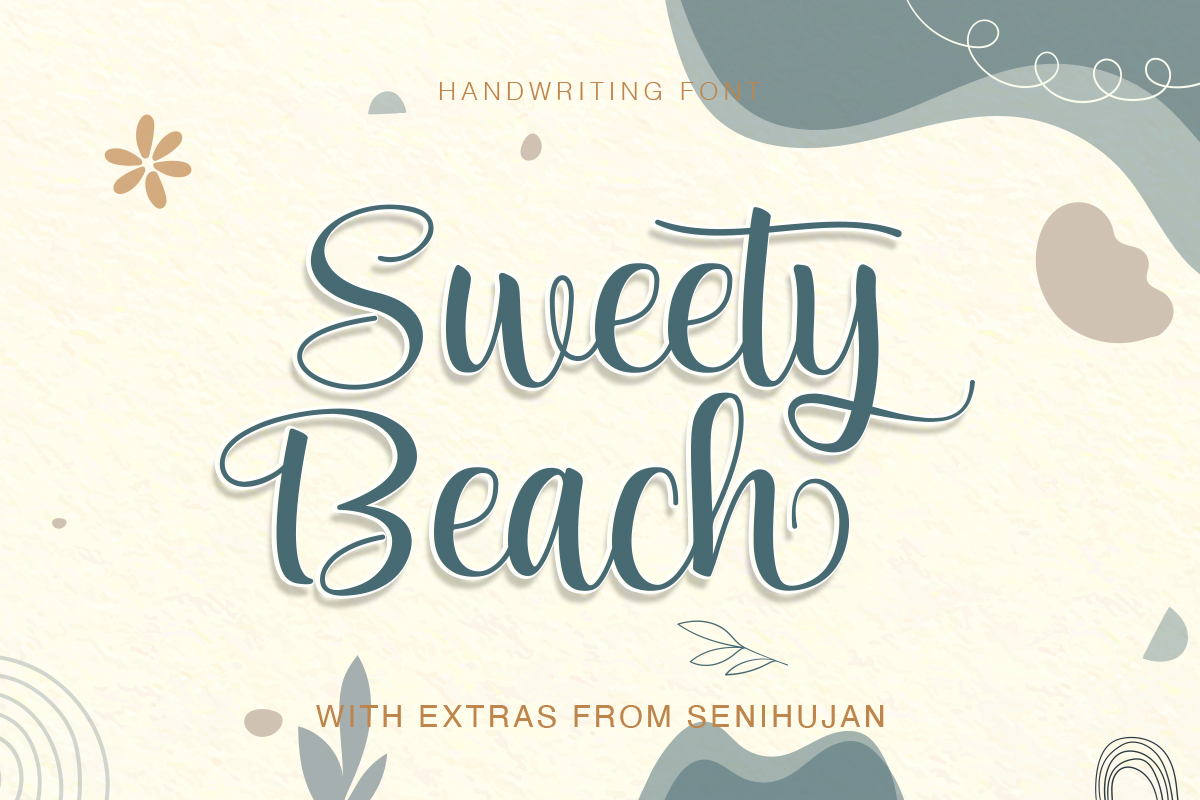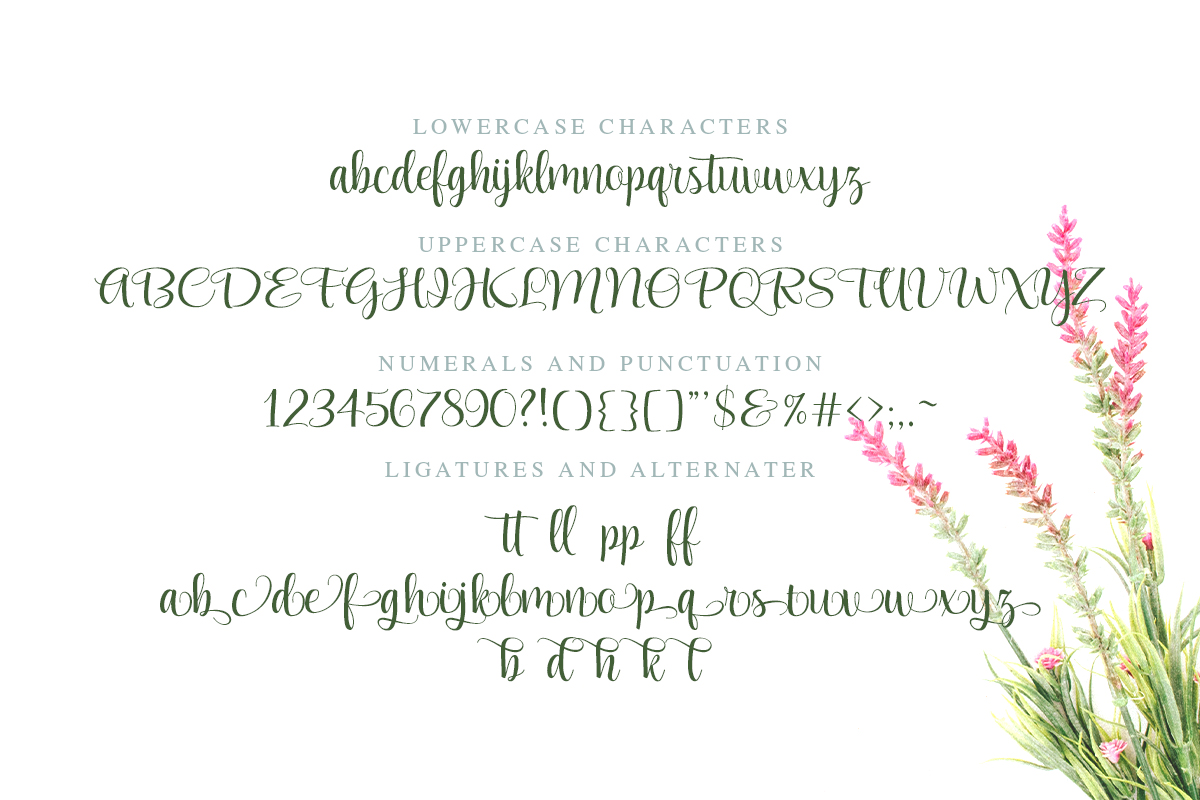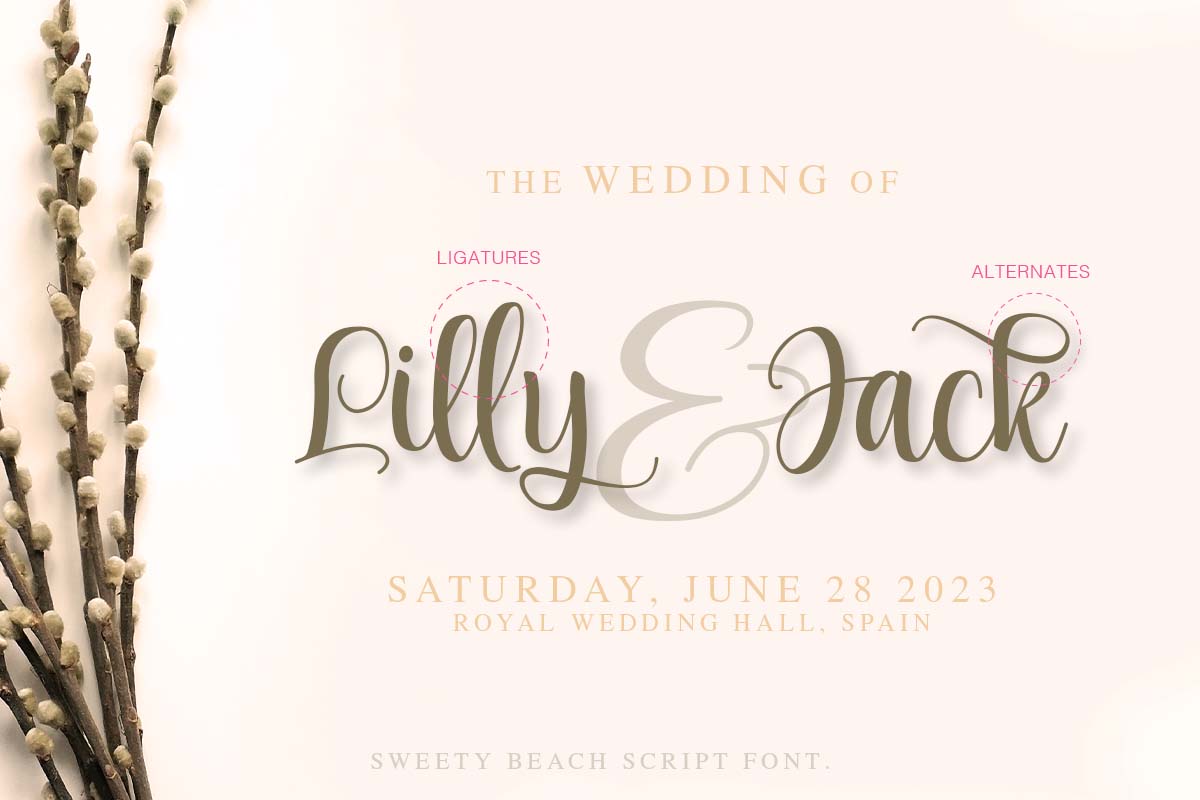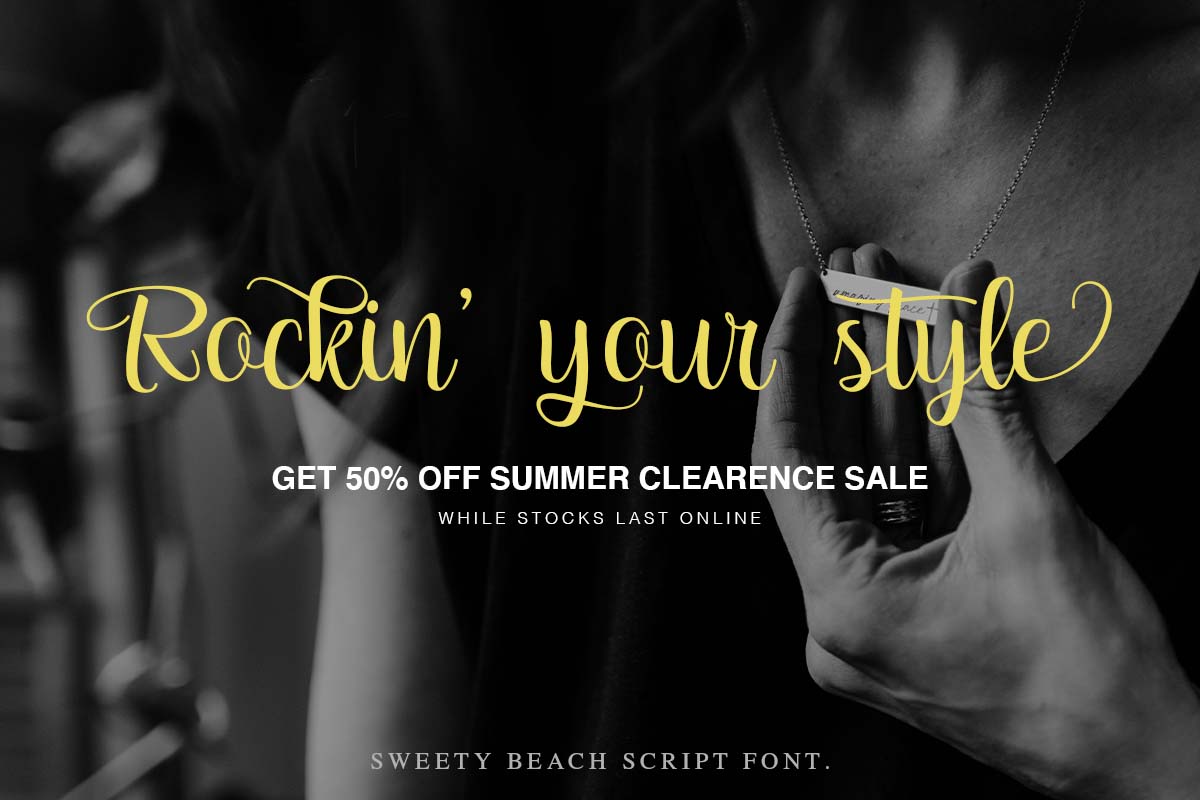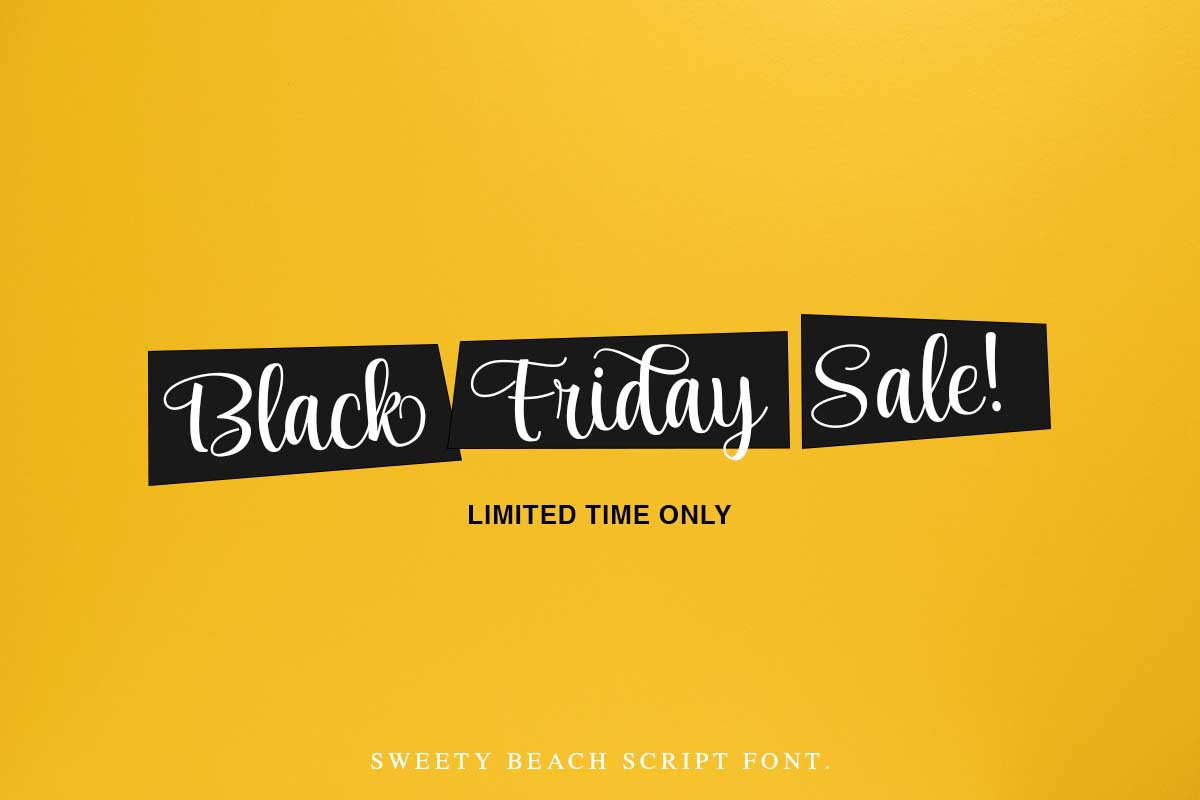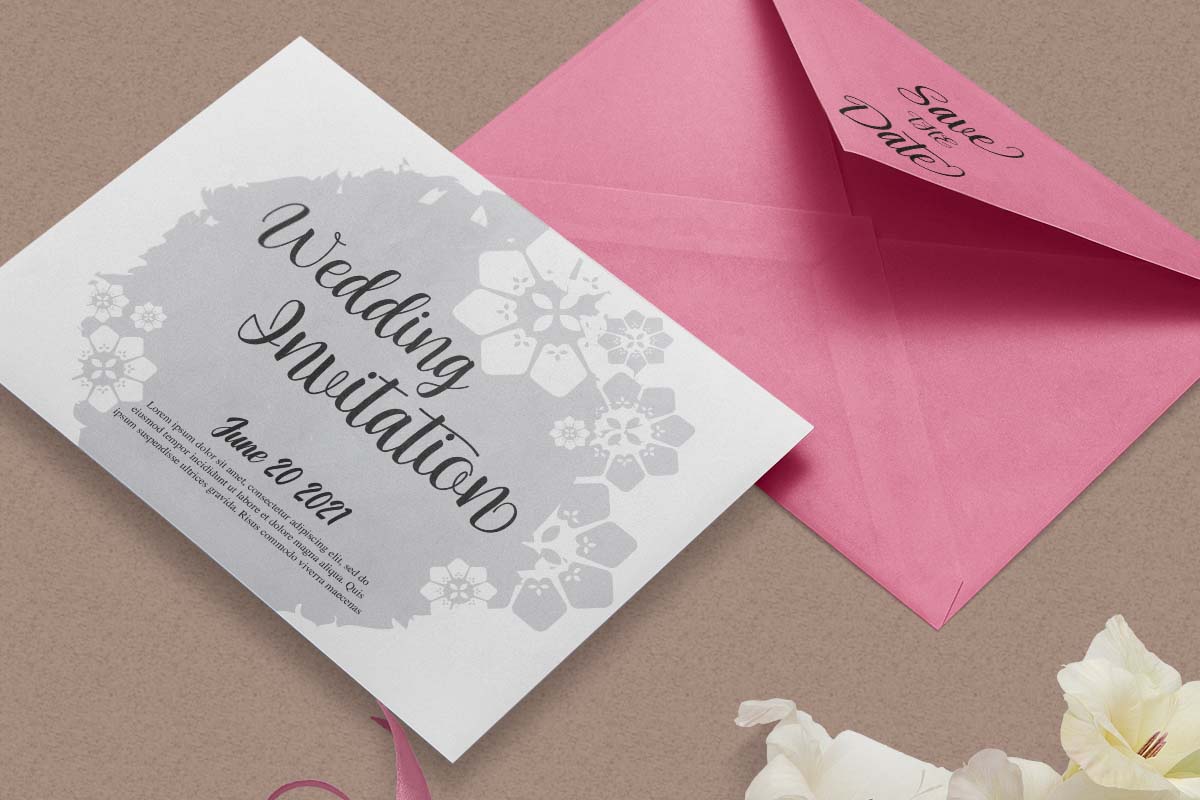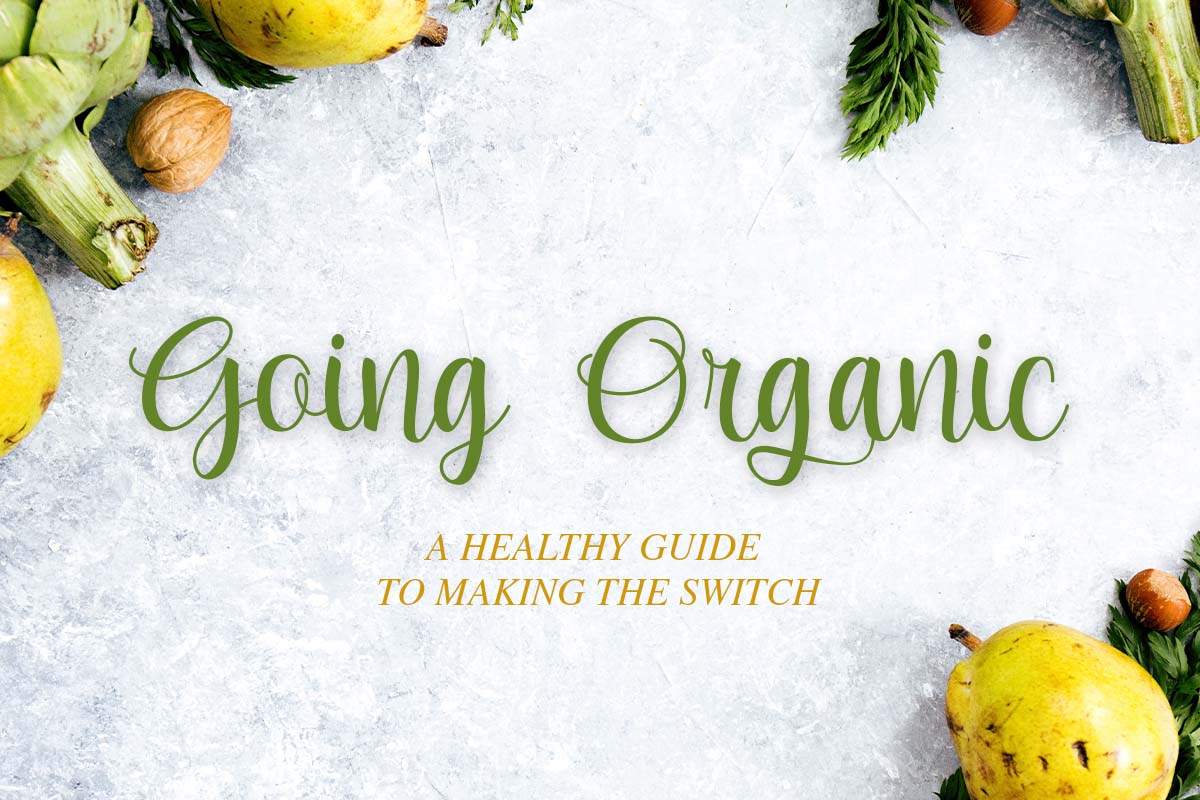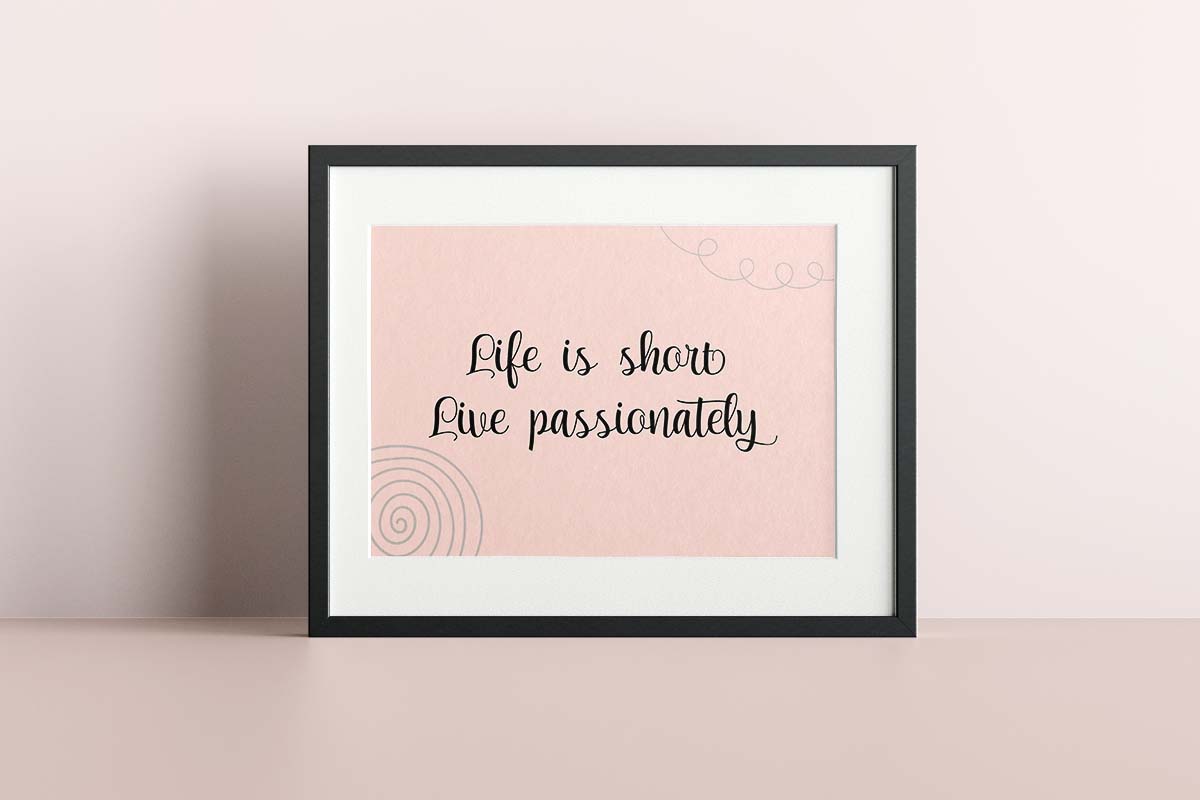
Sweety Beach
A Beautiful Handwritten Script Font With Tropical Charm, Perfect For Travel Branding, Beach Events, And Cheerful Summer Designs.
Sweety Beach
Playful Breezy Tropical Handwritten Script
Sweety Beach, now updated and released under Kereatype Studio, is a beautiful handwritten script font bursting with tropical charm and summer joy. Inspired by sun-soaked beach vacations and a laid-back atmosphere, its breezy letterforms and playful curves are perfect for travel branding, seaside events, and creative packaging. This cheerful typeface brings a touch of sunshine to every design, transforming your words into an effortless holiday experience. Whether you are designing for summer parties or lifestyle products, Sweety Beach ensures your projects shine with a vibrant and friendly spirit.
Playful Breezy Tropical Handwritten Script